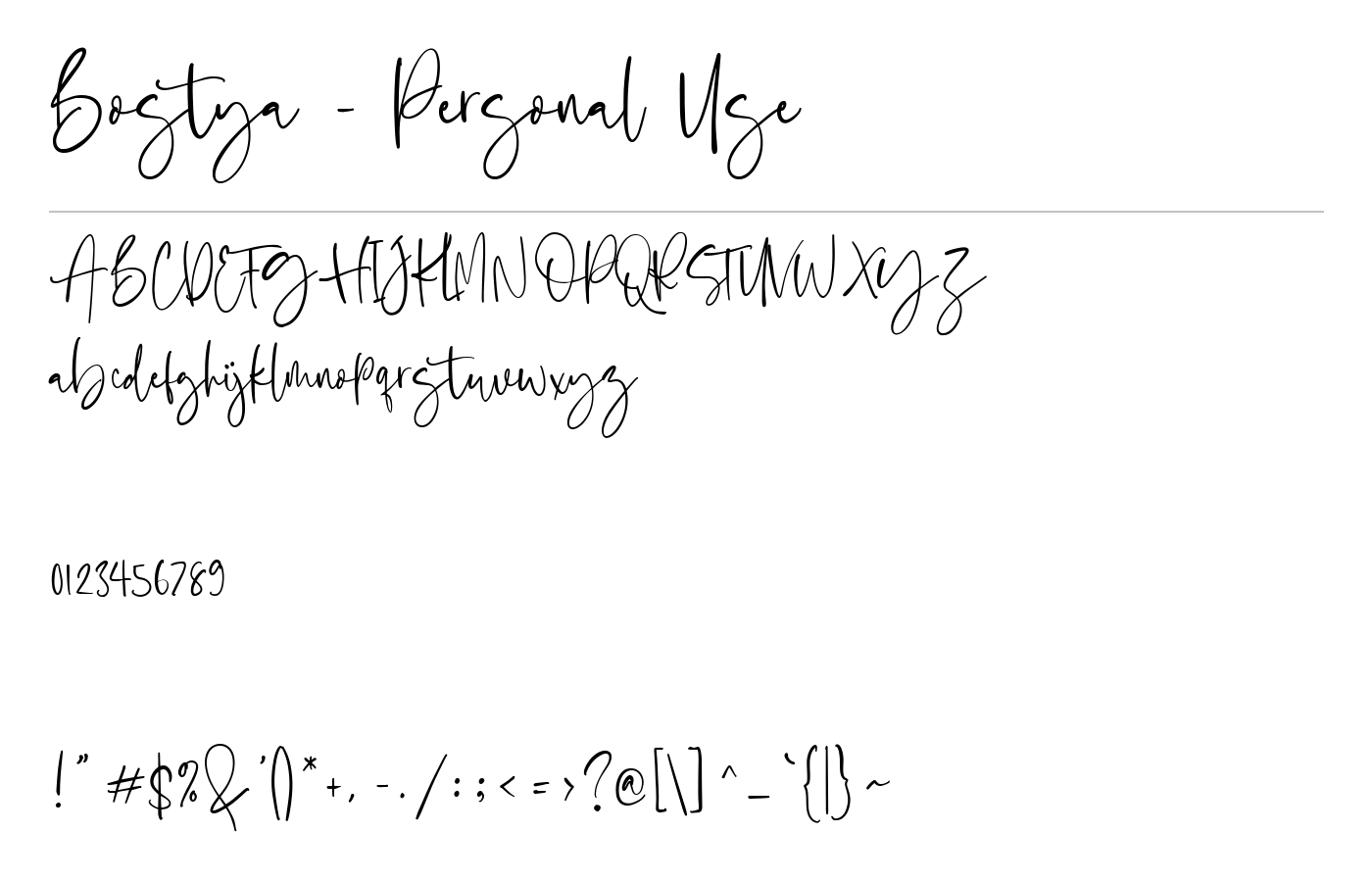
Bostya is a delicate, handwritten script font characterized by its thin, flowing lines and playful irregularity, giving it a personal and casual feel. With its tall, narrow letterforms and distinctive loops, it works beautifully for creative projects like invitations, branding, and social media where a friendly, approachable touch is desired. Its light weight and airy spacing make it ideal for decorative headlines or accents rather than dense body text.
Bostya - Personal Use Font